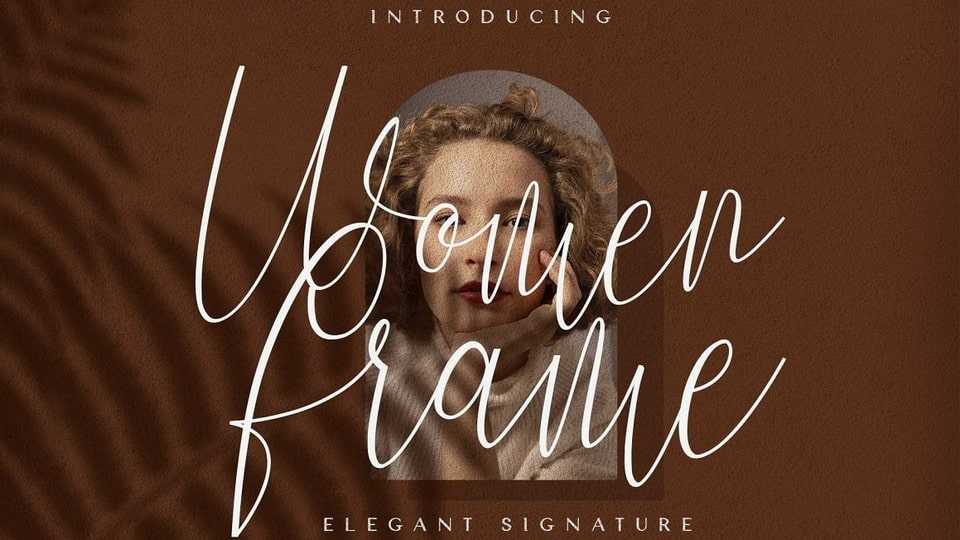
Download Women Frame font, a modern calligraphy typeface with beauty pressure. Women Frame font perfect for creating signature logos and watermarks for photography studio or wedding invitation.